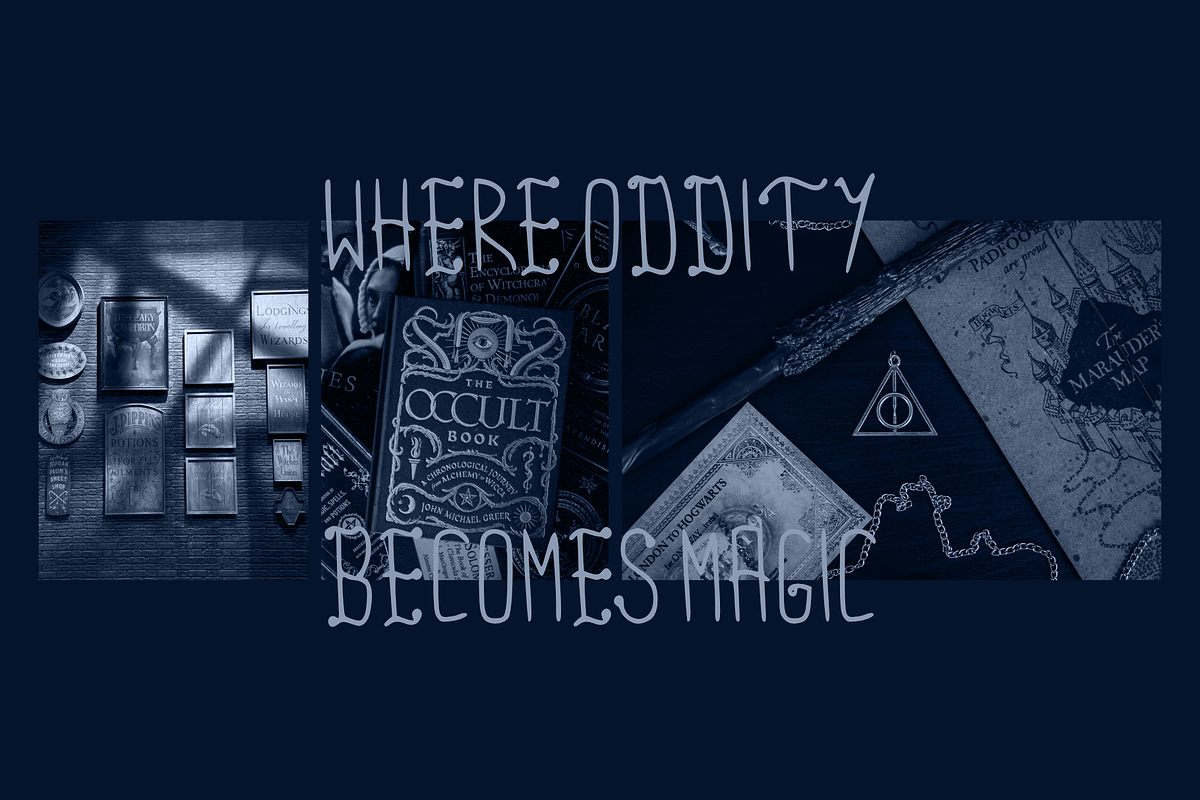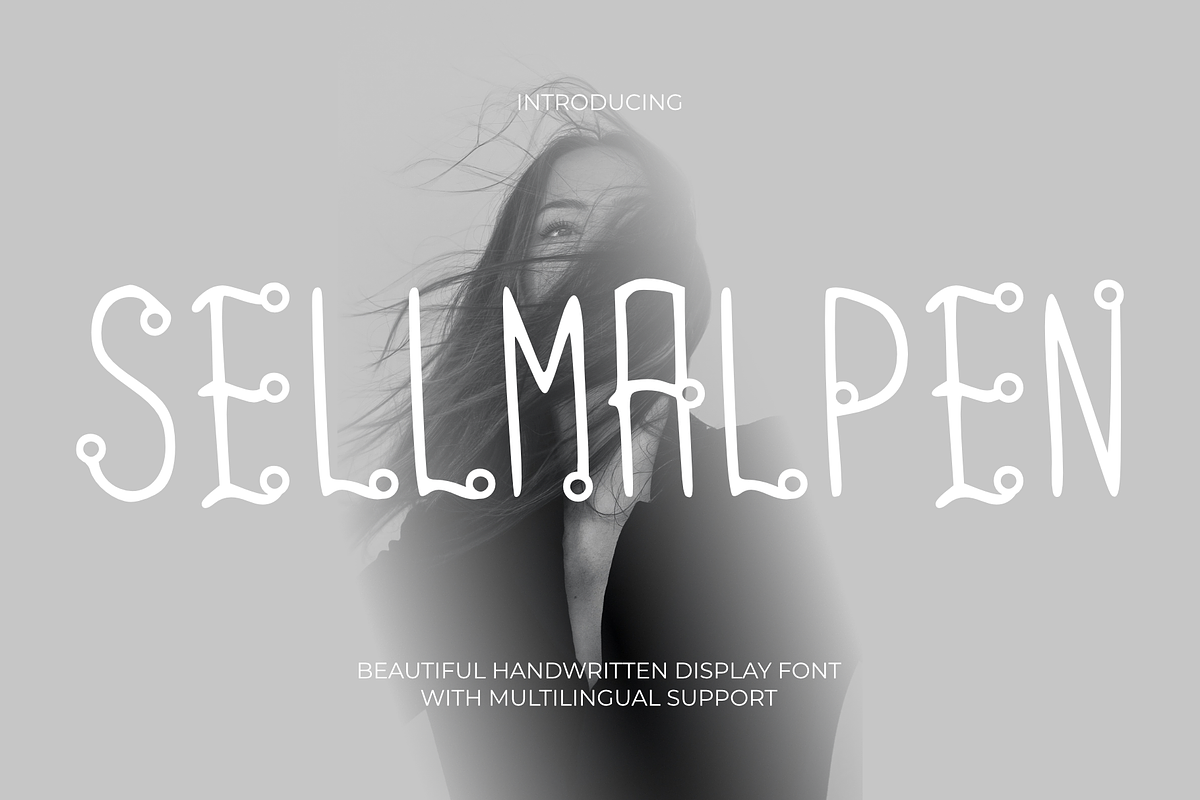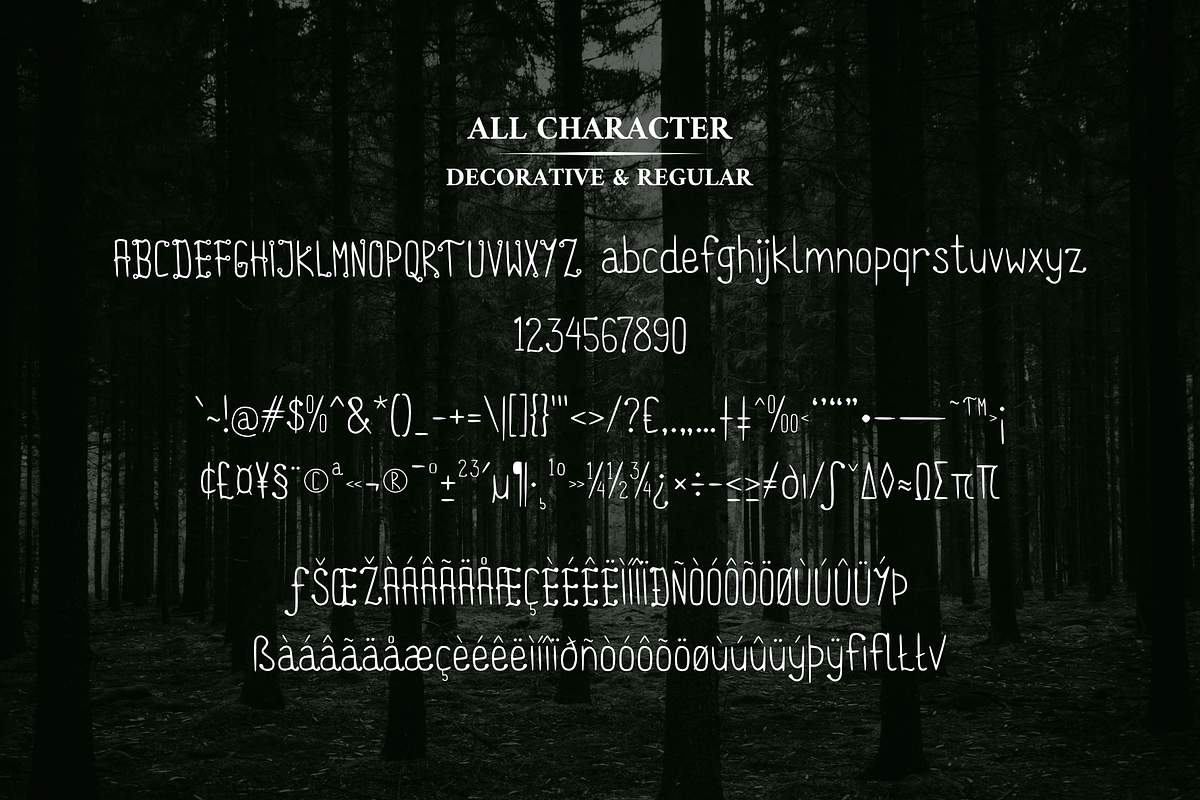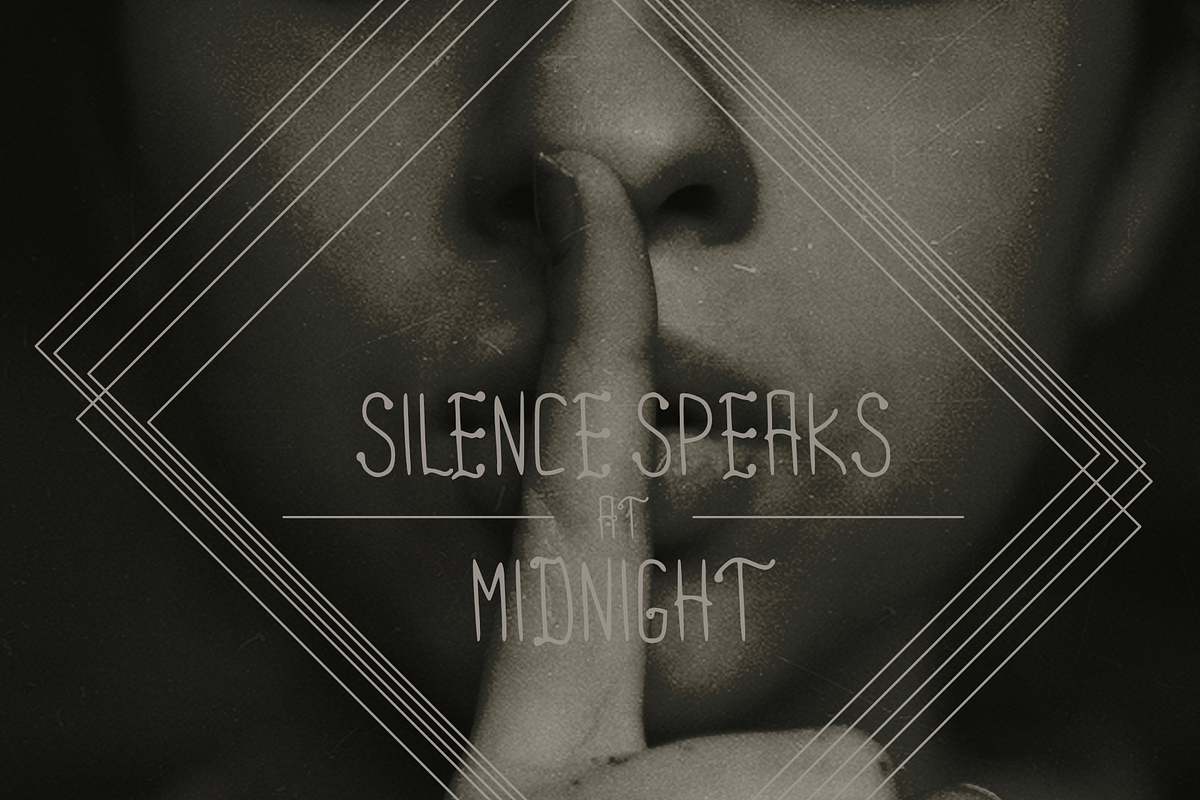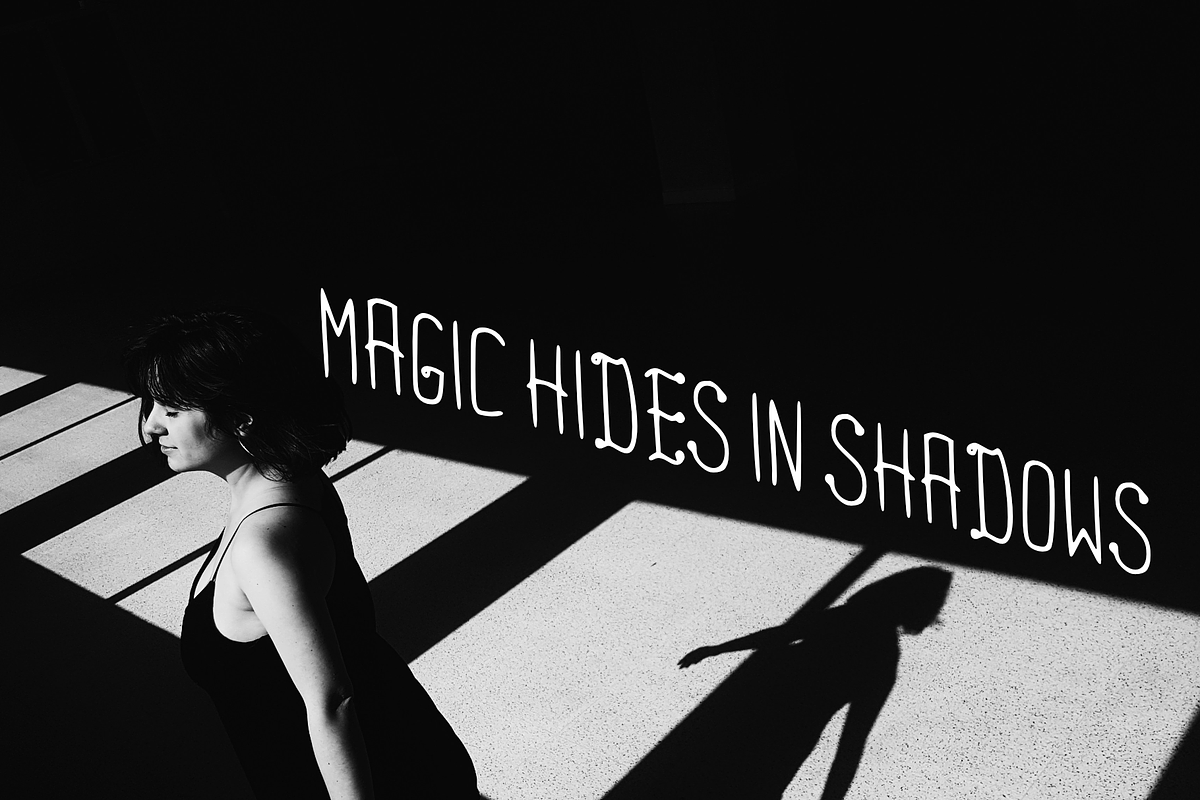
Sellmalpen Elegant Handwritten Font
Sellmalpen is a unique decorative handwritten font that combines playful elegance with a mysterious artistic touch. Featuring tall letterforms, quirky curves, and handcrafted details, this font creates a distinctive personality perfect for creative and expressive designs.
Inspired by whimsical hand lettering and modern decorative typography, Sellmalpen brings a stylish yet unconventional look that stands out beautifully in both digital and print projects. Its clean readability combined with decorative alternates makes it ideal for designers who want something artistic, fun, and memorable.
This font includes uppercase, lowercase, numerals, punctuation, symbols, and multilingual characters, making it versatile for a wide range of creative needs.